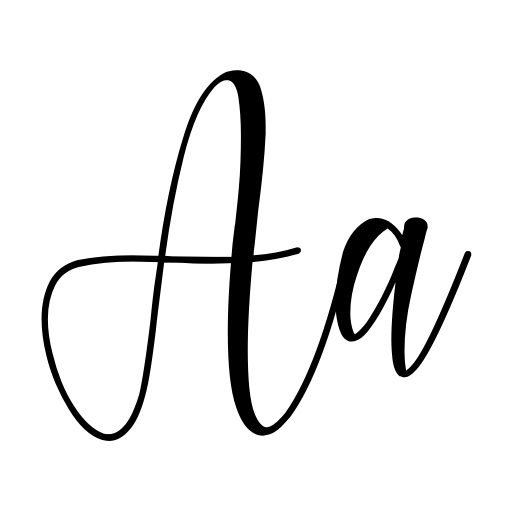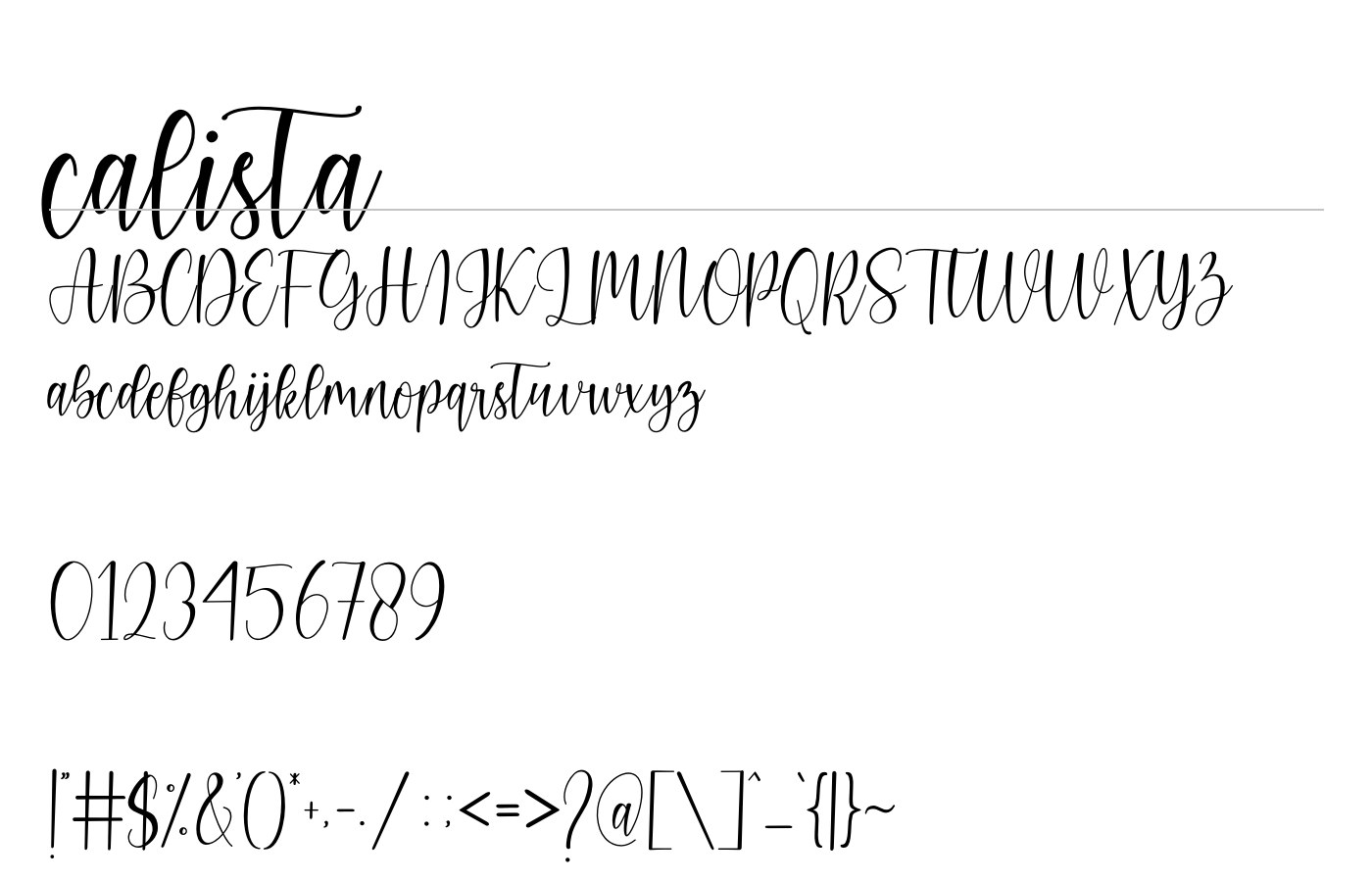
Calista is an elegant, handwritten script font characterized by its slender, flowing letterforms and graceful curves. Its thin strokes and delicate connections give it a light, airy feel, making it ideal for feminine, romantic, or sophisticated design projects such as wedding invitations, branding, and luxury packaging. This font works beautifully in headlines and decorative text where a stylish, personal touch is desired.
| Designer | Muhamad Fikry Nuralif |